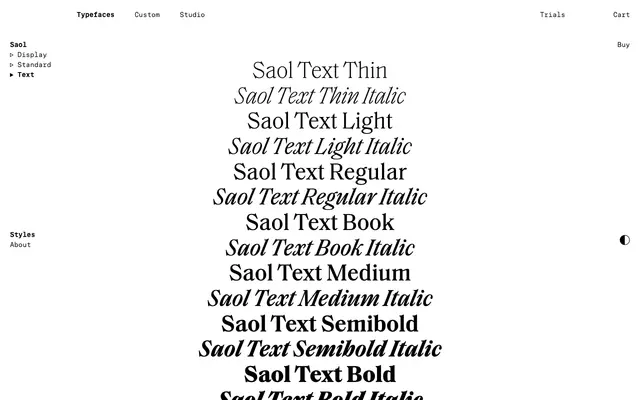
Saol Text
Saol Text specimen from Schick Toikka
Saol's text optical size: a Victorian old-style serif for body copy with modest contrast, a Book weight, and flamboyant swash italic.
Saol Text is the smallest-size cut of the Saol family. The foundry describe it as optimised for smaller sizes with modest contrast, with the family's Victorian terminals and taut shoulders softened just enough to remain readable in body copy. Seven weights from Thin to Bold including a Book weight, all with matching italics, give it editorial range, and the flamboyant swash italic carries through. Pair it up to Saol Standard and Saol Display for headlines and subheads.
The text optical size of Saol; the foundry describe it as optimised for smaller sizes with modest contrast. Includes a Book weight that the Display and Standard styles do not.